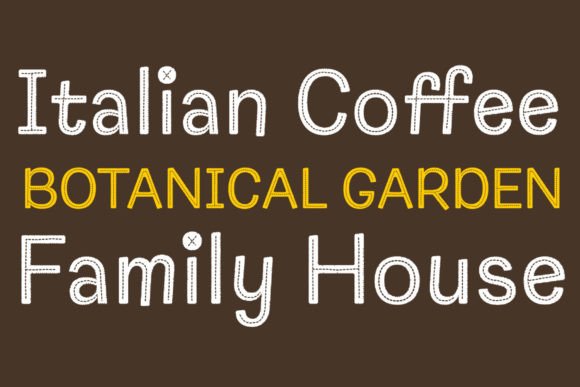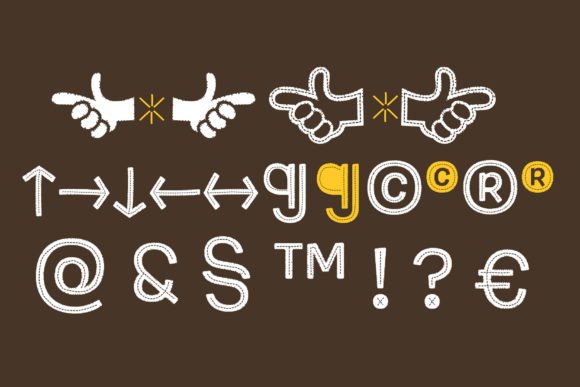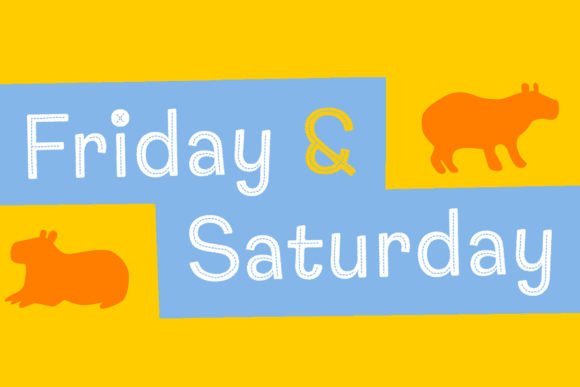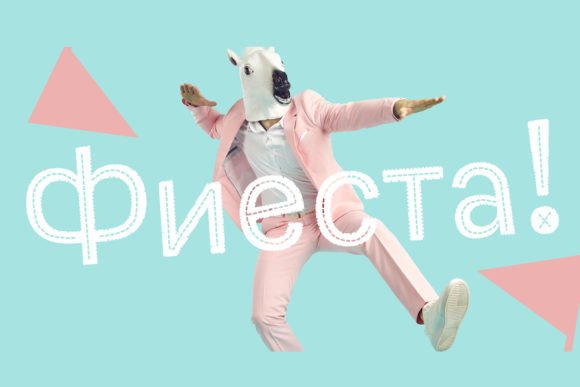
Discover the Playful Charm of Capybara Spring Font
This fun and playful typeface is ideal for youth and children’s titles and logos, and I’m excited to share its features and versatility with you.
An Honest Review of Capybara Spring Font
- ✅ The font includes the Cyrillic alphabet, making it a great option for projects that require a broader language support.
- ✅ The alternative characters and special ligatures add a creative touch to any design.
- ✅ The playful and lively feel of the font is perfect for youth and children’s projects.
- ✅ The font is highly versatile and can be used for a variety of design projects, from titles and logos to posters and invitations.
- ⚠️ Some users may find the font a bit too playful or childish for certain projects.
- ⚠️ The font may not be suitable for body text or reading-heavy content due to its decorative nature.
The Backstory of Capybara Spring Font
Capybara Spring Font was designed with the intention of creating a playful and lively typeface that would bring joy to children’s designs. The designer, inspired by the carefree nature of spring, aimed to create a font that would evoke feelings of happiness and creativity.
| Font Name | Capybara Spring Font |
| Author | Rodrigo Typo |
| What is Capybara Spring Font? | Capybara Spring Font is a fun and playful typeface ideal for youth and children’s titles and logos. |
| What languages does Capybara Spring Font support? | Capybara Spring Font includes the Cyrillic alphabet, making it suitable for projects that require language support for Russian, Ukrainian, and other languages that use the Cyrillic script. |